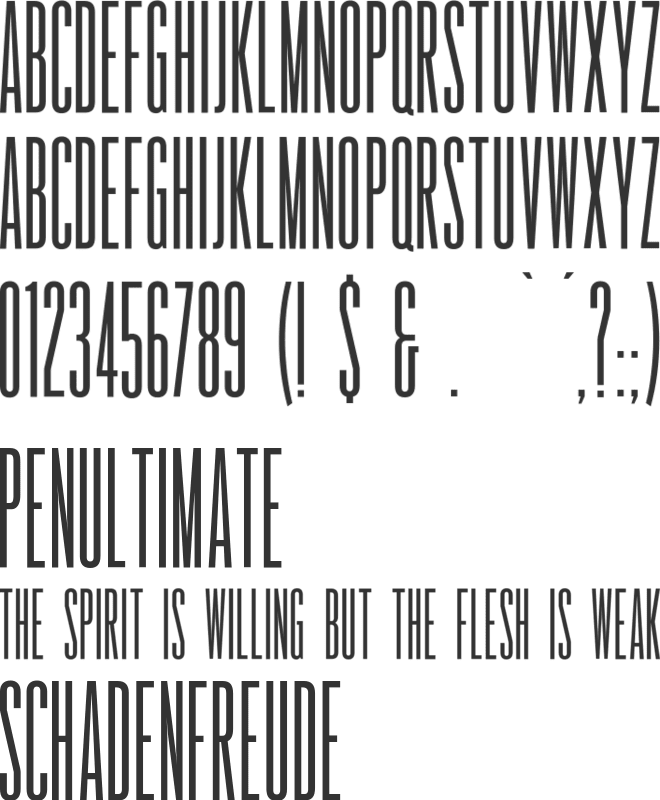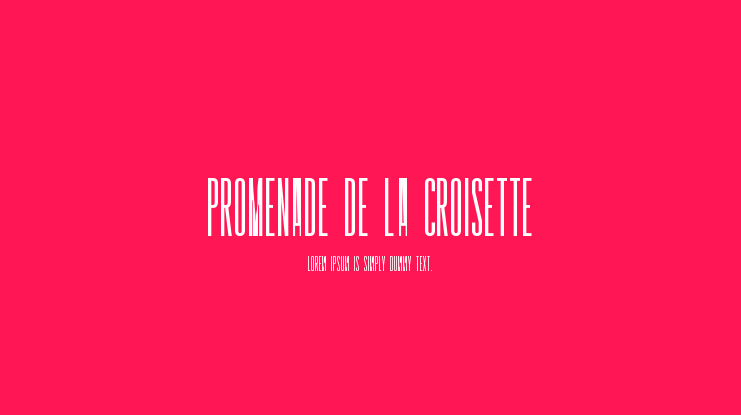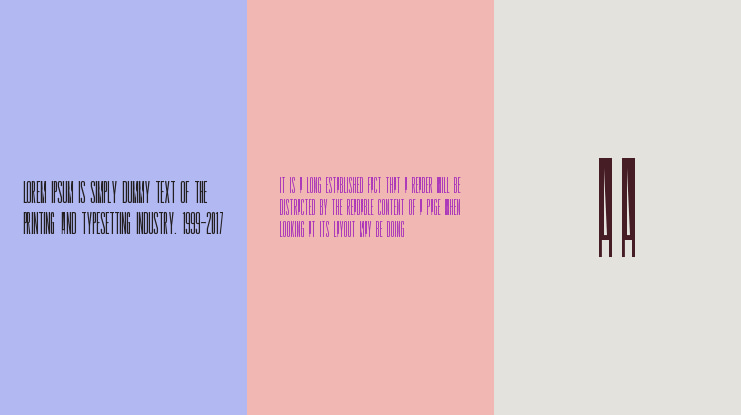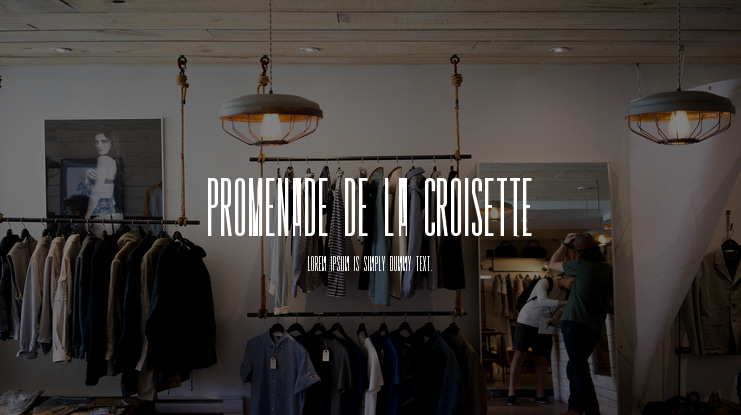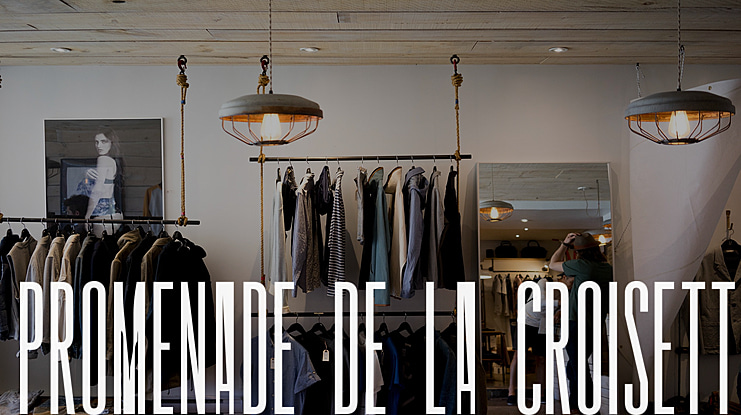
Promenade de la Croisette Font
Promenade de la Croisette is a tall and proud typeface. This font is suitable haute couture ads, movie poster credits and anything else that needs a bit of style.